About the The Diverse Font Bundle
Introducing The Diverse Font Bundle! This bundle is carefully curated and includes 18 of my best selling fonts (12 typefaces) each with it’s own unique style/look & feel, No two typefaces will look the same! With this bundle you will have everything you need to craft the perfect logo, layout, web design or even print/packaging, Font Bundle Details:•
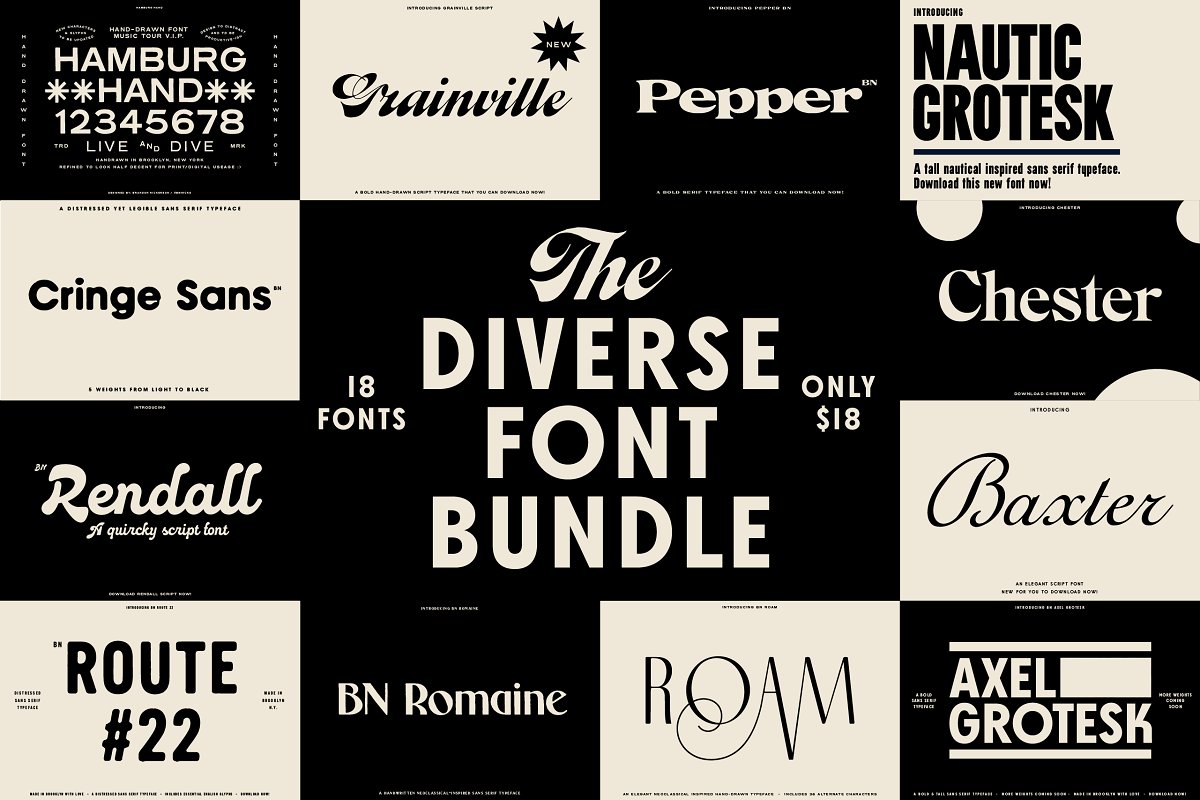
otf & web files inluded• BN Hamburg Hand (3 weights)• BN Grainville• BN Pepper• BN Nautic Grotesk• BN Cringe Sans Family (5 weights)• BN Chester• BN Rendall Script• BN Baxter Script• BN Route 22• BN Romaine• BN Roam• BN Axel GroteskAny questions? Just ask!